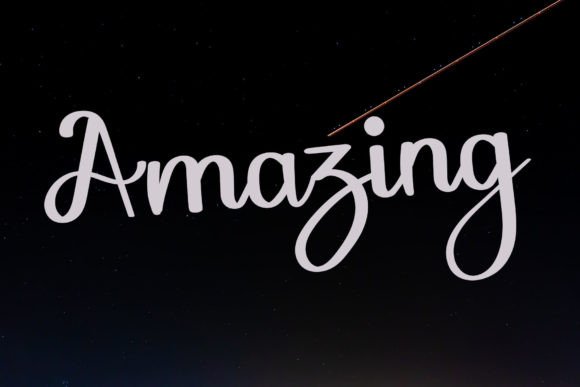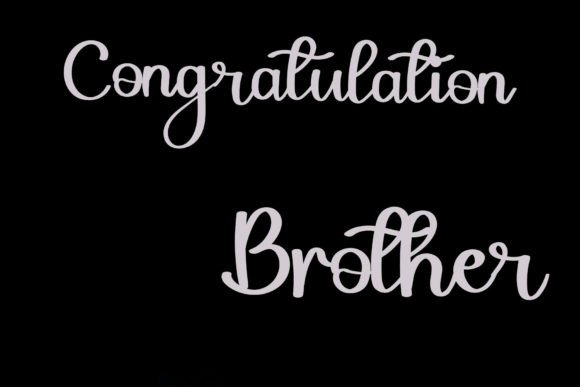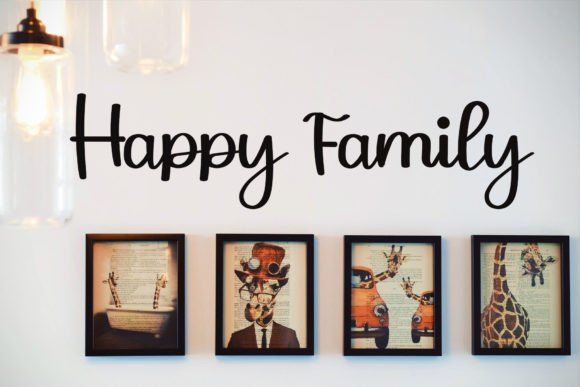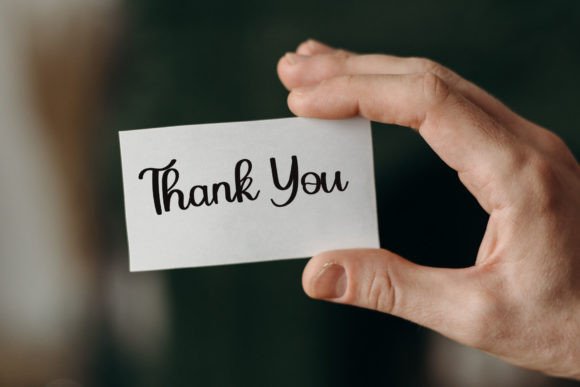
Discover the Elegance of Heather Font: Elevate Your Designs with Timeless Style
Are you on the hunt for a font that exudes elegance, sophistication, and a touch of whimsy? Look no further than the Heather Font, a stunning handwritten typeface that is sure to capture your heart. With its incredibly distinct and timeless style, Heather Font is the perfect addition to your design arsenal, allowing you to create spectacular designs that leave a lasting impression.
The Beauty of Heather Font
Heather Font is a neat and beautiful handwritten font that boasts an elegant touch, making it an ideal choice for designers and crafters seeking to add a touch of refinement to their projects. Its unique and distinctive style sets it apart from other fonts, ensuring that your designs stand out from the crowd. Whether you’re working on a branding project, crafting a social media graphic, or creating a stunning visual display, Heather Font is the perfect companion to help you achieve your creative vision.
What Makes Heather Font So Special?
So, what makes Heather Font so special? For starters, its elegant and refined style lends a touch of sophistication to any design, making it perfect for projects that require a level of luxury or high-end appeal. Additionally, its handwritten nature gives it a personal and approachable feel, making it ideal for designs that aim to connect with the audience on a more intimate level.
Key Features of Heather Font
- Elegant and Refined Style: Heather Font boasts a beautiful, elegant style that adds a touch of sophistication to any design.
- Handwritten Nature: Its handwritten nature gives it a personal and approachable feel, perfect for designs that aim to connect with the audience.
- Distinctive and Timeless: Heather Font’s incredibly distinct and timeless style ensures that your designs stand out and remain relevant for years to come.
- Versatile: Whether you’re working on a branding project, social media graphic, or visual display, Heather Font is the perfect companion to help you achieve your creative vision.
How to Use Heather Font in Your Designs
Heather Font is incredibly versatile and can be used in a wide range of design projects. Here are a few ideas to get you started:
- Branding and Logos: Use Heather Font to create stunning brand identities that exude elegance and sophistication.
- Social Media Graphics: Add a touch of refinement to your social media graphics, making them stand out in a crowded feed.
- Visual Displays: Use Heather Font to create stunning visual displays that capture attention and leave a lasting impression.
- Stationery and Packaging: Add a touch of elegance to your stationery and packaging designs, making them perfect for luxury brands.
Tips and Tricks for Getting the Most Out of Heather Font
To get the most out of Heather Font, here are a few tips and tricks to keep in mind:
- Experiment with Font Sizes: Don’t be afraid to experiment with different font sizes to add visual interest to your designs.
- Pair with Other Fonts: Heather Font pairs beautifully with other fonts, so don’t be afraid to get creative and try out different combinations.
- Use it Sparingly: While Heather Font is stunning, it’s best used sparingly to avoid overwhelming the design.
In conclusion, Heather Font is a stunning handwritten typeface that is sure to elevate your designs to new heights. With its elegant and refined style, distinctive and timeless aesthetic, and versatile nature, it’s the perfect addition to your design arsenal. Whether you’re a designer, crafter, or simply someone who appreciates beautiful typography, Heather Font is a must-have font that will help you create spectacular designs that leave a lasting impression.